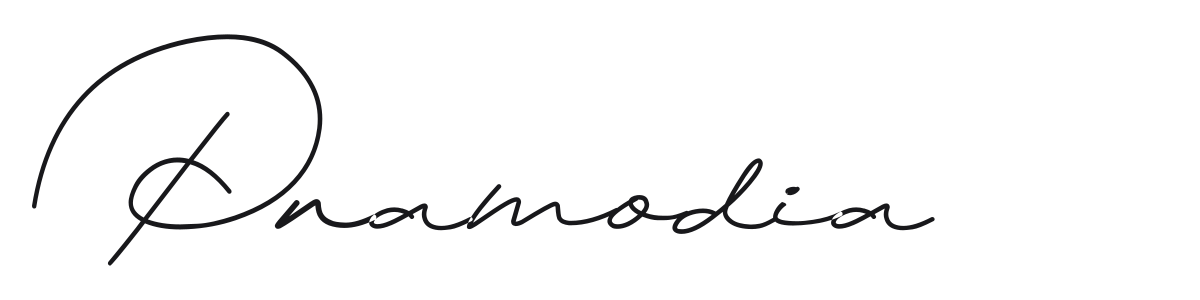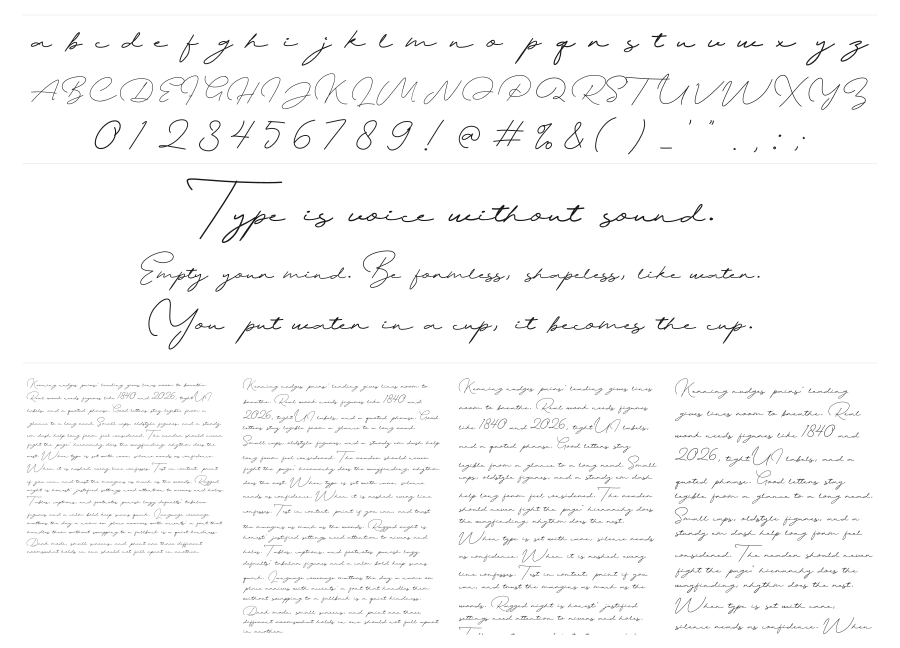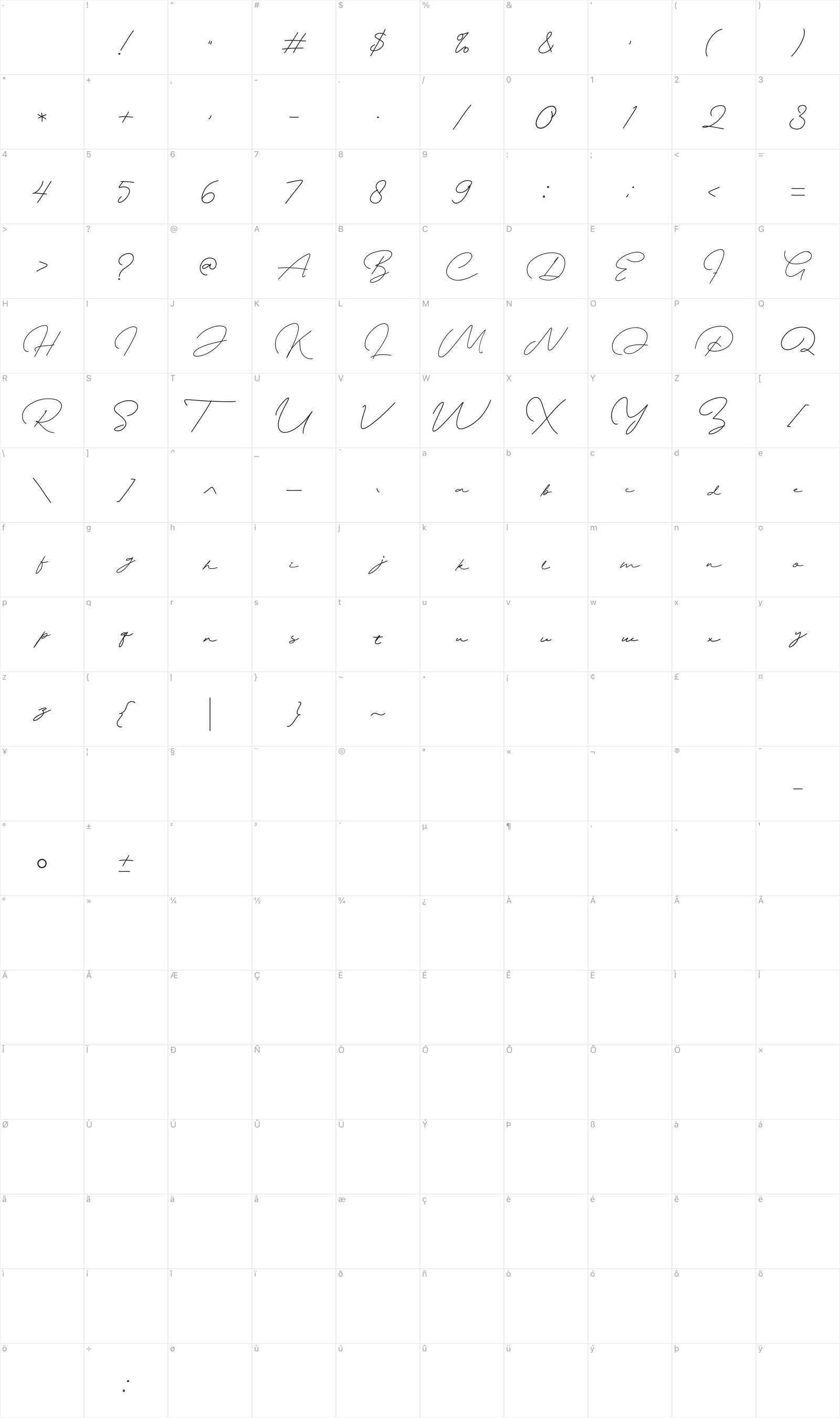
Pramodia
Pramodia is a monoline cursive script with long sweeping strokes and generous looping connections between characters. The consistent thin weight keeps it light and airy, while the flowing rhythm gives it genuine calligraphic character. It occupies that useful middle ground between formal elegance and relaxed warmth.